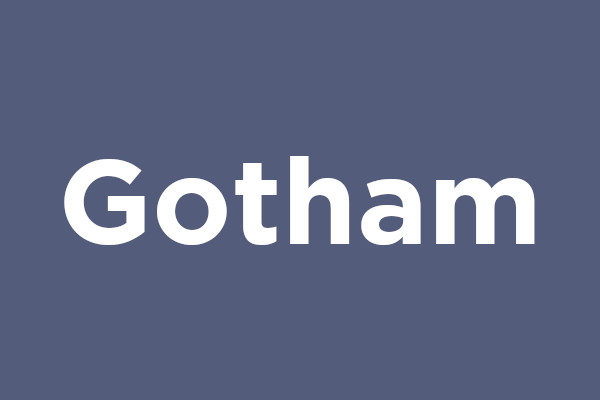
Gotham is a sans-serif typeface designed by Tobias Frere-Jones in 2000. It was commissioned by GQ magazine and later released by Hoefler & Co. The font is known for its clear, straightforward style influenced by architectural signage from the mid-20th century.